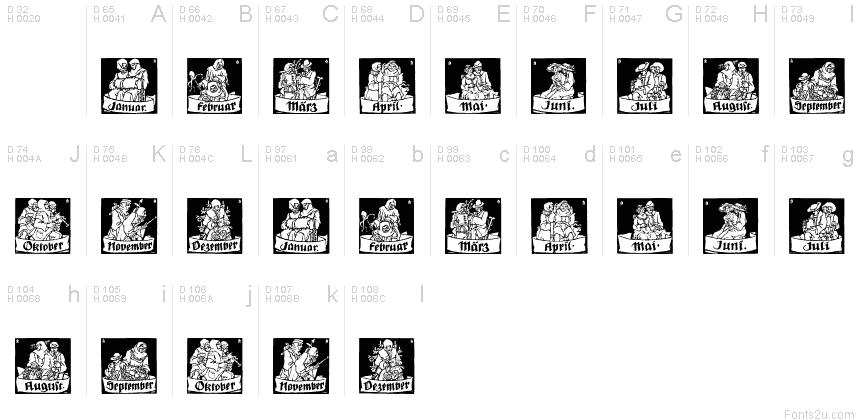
Monats-Vignetten 1
Monats-Vignetten 1 is a free calendar dingbat font digitized by Dieter Steffmann from Franz Franke's month-themed drawings for the Bauersche Giesserei. The set centers on illustrated seasonal vignettes framed by ribbon captions, giving each symbol the feel of a small printed almanac panel rather than a neutral ornament.
It makes especially good sense in calendars, journal dividers, greeting cards, vintage ephemera, and themed packaging where a compact scene can do the work of both image and label. The captioned cartouche structure also helps in scrapbook pages, recipe books, and holiday inserts that want old-style decorative markers instead of plain icons.